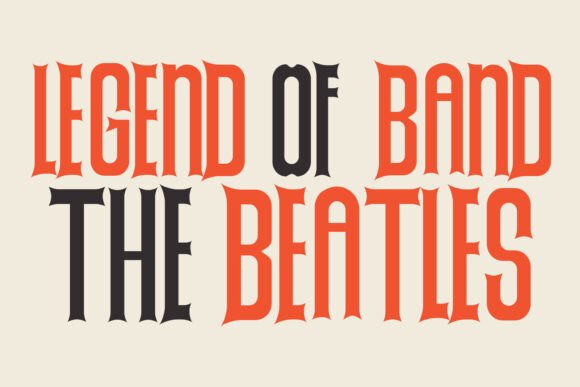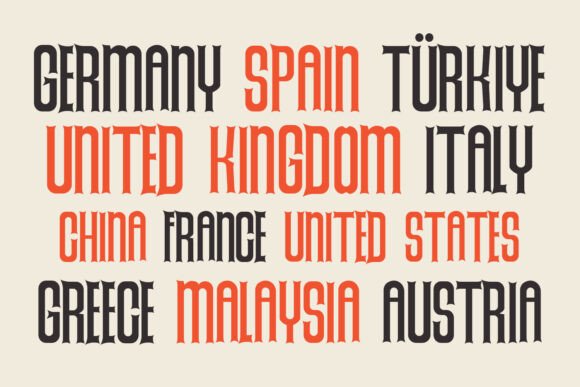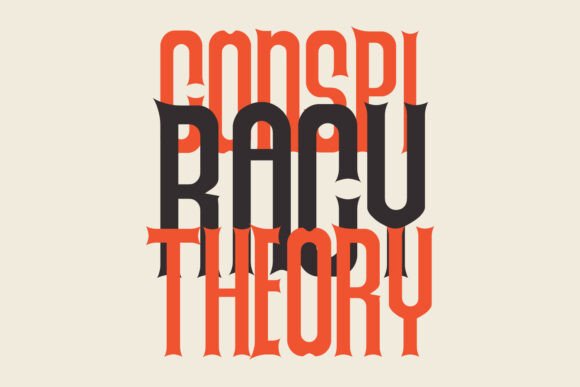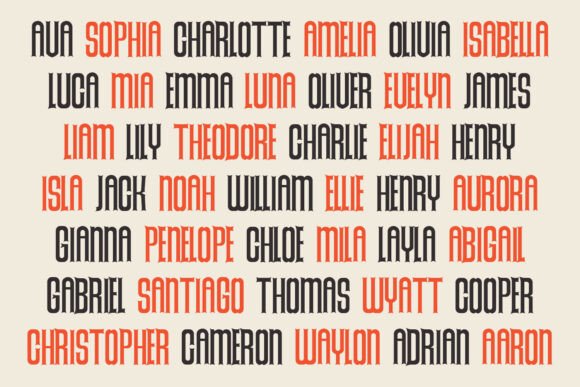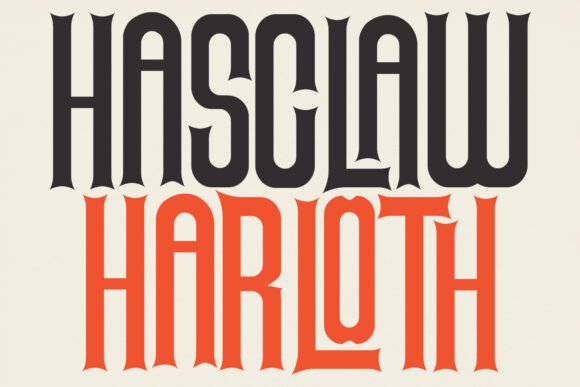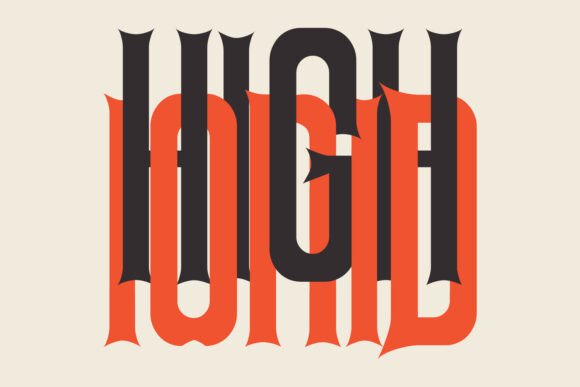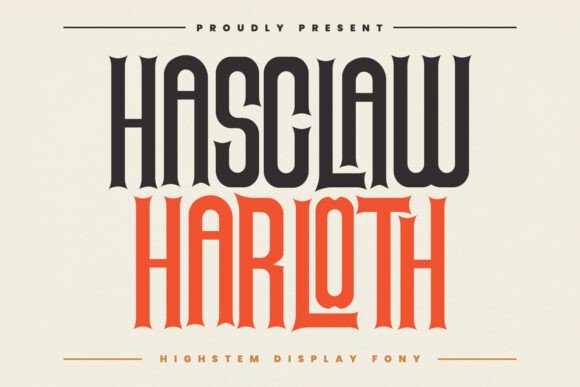
Introducing Hasclaw Harloth Font: The Ultimate Choice for Bold and Edgy Designs
In the world of typography, fonts play a crucial role in conveying the tone and personality of a brand or design. For designers and crafters looking for a sleek and modern font to make a statement, Hasclaw Harloth Font is an excellent choice. This stylish font is designed to turn heads with its tall, slim letters, condensed style, and sharp lines, making it perfect for bold headlines, logos, titles, and more.
Key Features of Hasclaw Harloth Font
- All-Caps Design: Hasclaw Harloth Font is an all-caps font, which gives it a strong and commanding presence on any design.
- Condensed Style: The font’s condensed style allows for more text to be fitted into a smaller space, making it ideal for designs where space is limited.
- Tall and Slim Letters: The tall and slim letters of Hasclaw Harloth Font give it a sleek and modern look that’s perfect for creating bold and eye-catching designs.
- Sharp Lines: The font’s sharp lines add an edgy touch to any design, making it perfect for brands and designs that want to convey a sense of sophistication and style.
Uses of Hasclaw Harloth Font
Hasclaw Harloth Font is a versatile font that can be used in a variety of design projects, including:
- Headlines and Titles: The font’s bold and condensed style makes it perfect for creating attention-grabbing headlines and titles.
- Logos and Branding: Hasclaw Harloth Font’s unique and stylish design makes it an excellent choice for logos and branding projects.
- Posters and Flyers: The font’s bold and edgy look makes it perfect for creating eye-catching posters and flyers.
- Digital Media: Hasclaw Harloth Font can also be used in digital media, such as social media graphics, website headers, and more.
Benefits of Using Hasclaw Harloth Font
Using Hasclaw Harloth Font in your designs offers several benefits, including:
- Unique and Stylish Design: The font’s unique and stylish design helps to create a lasting impression on the viewer.
- Improved Readability: The font’s clear and bold design makes it easy to read, even at small sizes.
- Versatility: Hasclaw Harloth Font can be used in a variety of design projects, from print to digital media.
- Time-Saving: The font’s bold and condensed style saves time and effort in design, as it eliminates the need for extensive styling and formatting.
How to Use Hasclaw Harloth Font Effectively
To get the most out of Hasclaw Harloth Font, here are some tips for using it effectively:
- Pair it with a Simple Font: Pair Hasclaw Harloth Font with a simple font to create a striking contrast and add visual interest to your design.
- Use it for Headlines and Titles: Use the font for headlines and titles to create a bold and attention-grabbing effect.
- Experiment with Colors: Experiment with different colors to find the perfect combination that complements the font’s edgy and stylish design.
- Keep it Simple: Keep your design simple and clean to allow the font to take center stage.
Hasclaw Harloth Font is a sleek and modern font that’s perfect for designers and crafters looking to create bold and eye-catching designs. Its unique and stylish design, condensed style, and sharp lines make it an excellent choice for a variety of design projects, from print to digital media. By following the tips outlined above, you can use Hasclaw Harloth Font effectively and create stunning designs that leave a lasting impression.